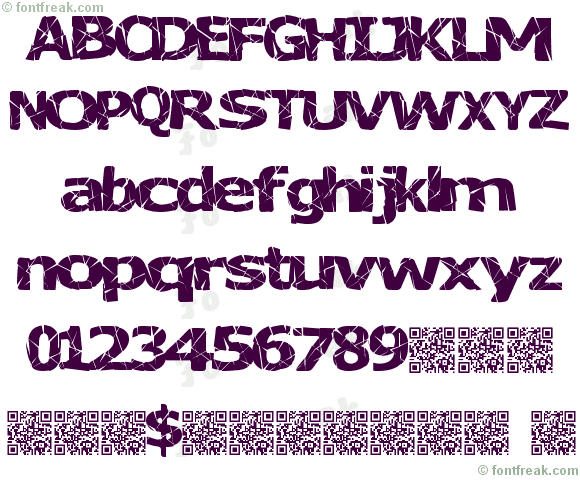
BadLuck
About BadLuck
Introducing the BadLuck font by XEROGRAPHER FONTS, a striking display typeface that combines an edgy aesthetic with unique visual characteristics. Released in 2013, this freeware font stands out with its unconventional design, making it a perfect choice for those seeking to make a bold statement. The BadLuck font features irregular stroke weights and a fragmented appearance, giving it a distressed look that captures attention. The letters are spaced with a deliberate looseness, enhancing its artistic flair, while the jagged edges add a sense of unpredictability.
This font is ideal for a variety of creative projects. It works exceptionally well for movie posters, where an impactful title can draw viewers in. Additionally, it can add a distinctive touch to music album covers, making it suitable for genres that celebrate individuality and rebellion. The BadLuck font also serves as an excellent choice for promotional materials in small businesses, such as unique restaurant menus or event flyers, where it can help convey a sense of creativity and originality. Graphic designers and content creators will find this font invaluable for enhancing their projects with an unconventional twist.
The target audience for the BadLuck font includes graphic designers looking for fresh and innovative typefaces, small business owners who want to stand out in a competitive market, and content creators aiming to add a unique visual element to their work.
What makes the BadLuck font truly special is its ability to convey a sense of character and emotion. Its distinctive style not only grabs attention but also evokes curiosity, making it a versatile choice for those who want to leave a lasting impression. For anyone looking to incorporate a unique flair into their designs, the BadLuck font free download is an opportunity not to be missed.